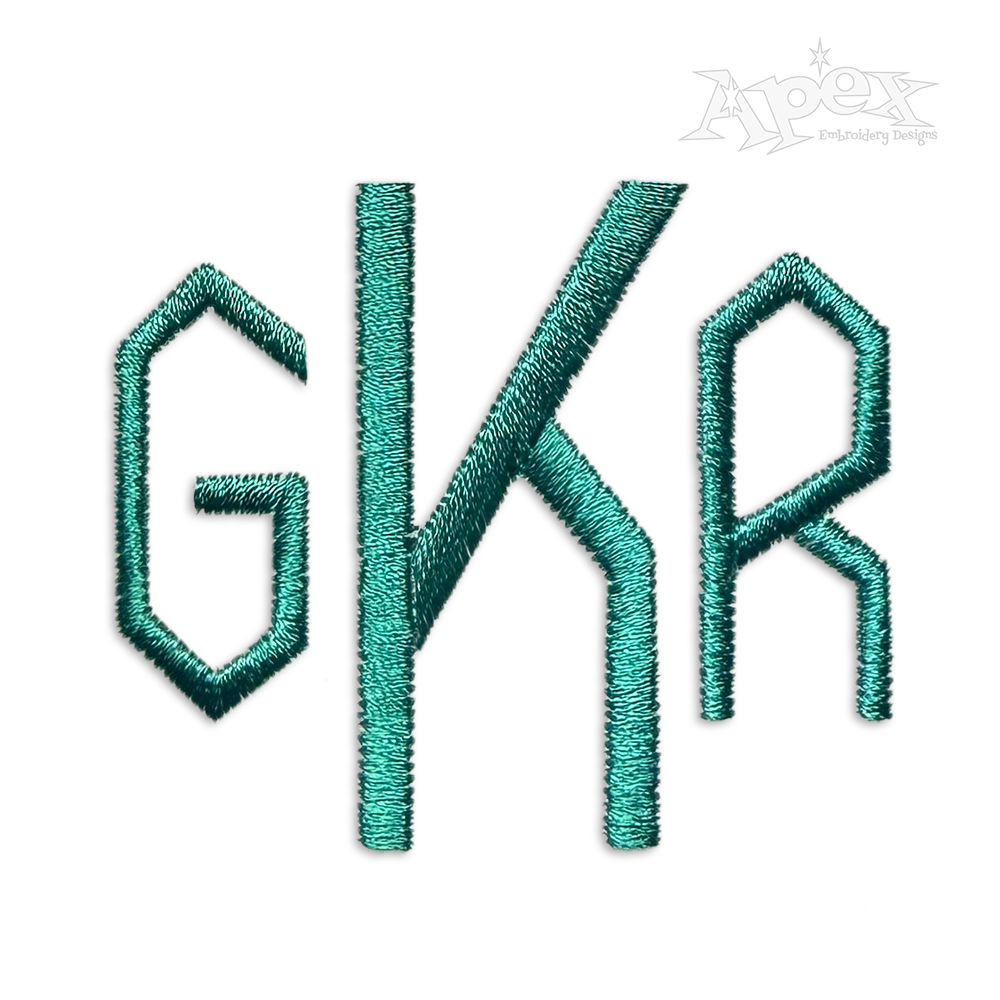
Diamond Embroidery Font
In the quiet rhythm of the embroidery studio, where needle meets fabric, there is a distinct reverence for architectural precision. The Diamond Embroidery Font was born from a fascination with mid-century geometric crests and classic jewelry facets—where sharp angles resolve into timeless elegance. Digitized to bring regal sophistication to bespoke linens and personalized gifts, this collection transforms traditional lettering into structured, gem-cut monograms that command attention while maintaining refined grace.
Designed for striking clarity and balanced stitch count, this monogram collection features meticulously planned uppercase letterforms:
- 2.0 Inch Monograms: A versatile size scaled purposefully to create impactful focal monograms without overpowering the ground cloth.
- Complete Uppercase Alphabet: Full individual letter monogram designs digitized specifically for precision hoop placement across home and commercial embroidery machines.
The structured silhouette of this diamond crest alphabet naturally elevates everyday textiles into bespoke heirlooms:
Diamond Embroidery Font Craft & Letterform Details
Digitizing a diamond-top letterform requires more than drawing straight lines; it demands an intricate knowledge of stitch push-and-pull dynamics. Every stroke in this font is mapped with directional satin stitching that catches the light from varying angles, mimicking the natural shimmer of a cut gemstone. To ensure that the razor-sharp diamond apexes and crisp terminal corners never distort or curl into the weave, we have built a multi-layered underlay structure beneath each character. This deliberate foundation secures the textile fibers before the lustrous top stitching glides effortlessly into place, providing unmatched loft, mirror-smooth satin sheens, and flawless edge definition on everything from delicate cambric to heavyweight twill.